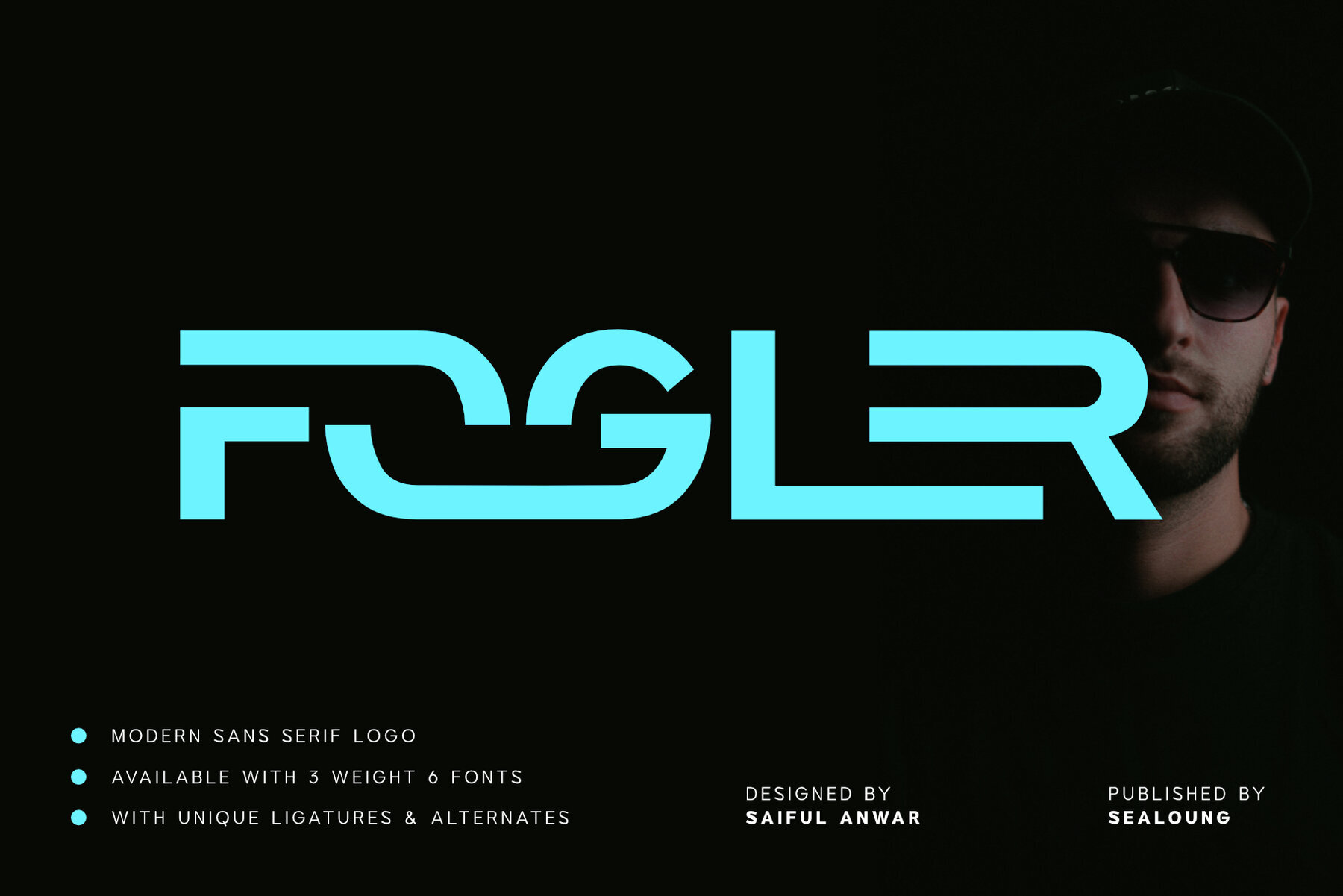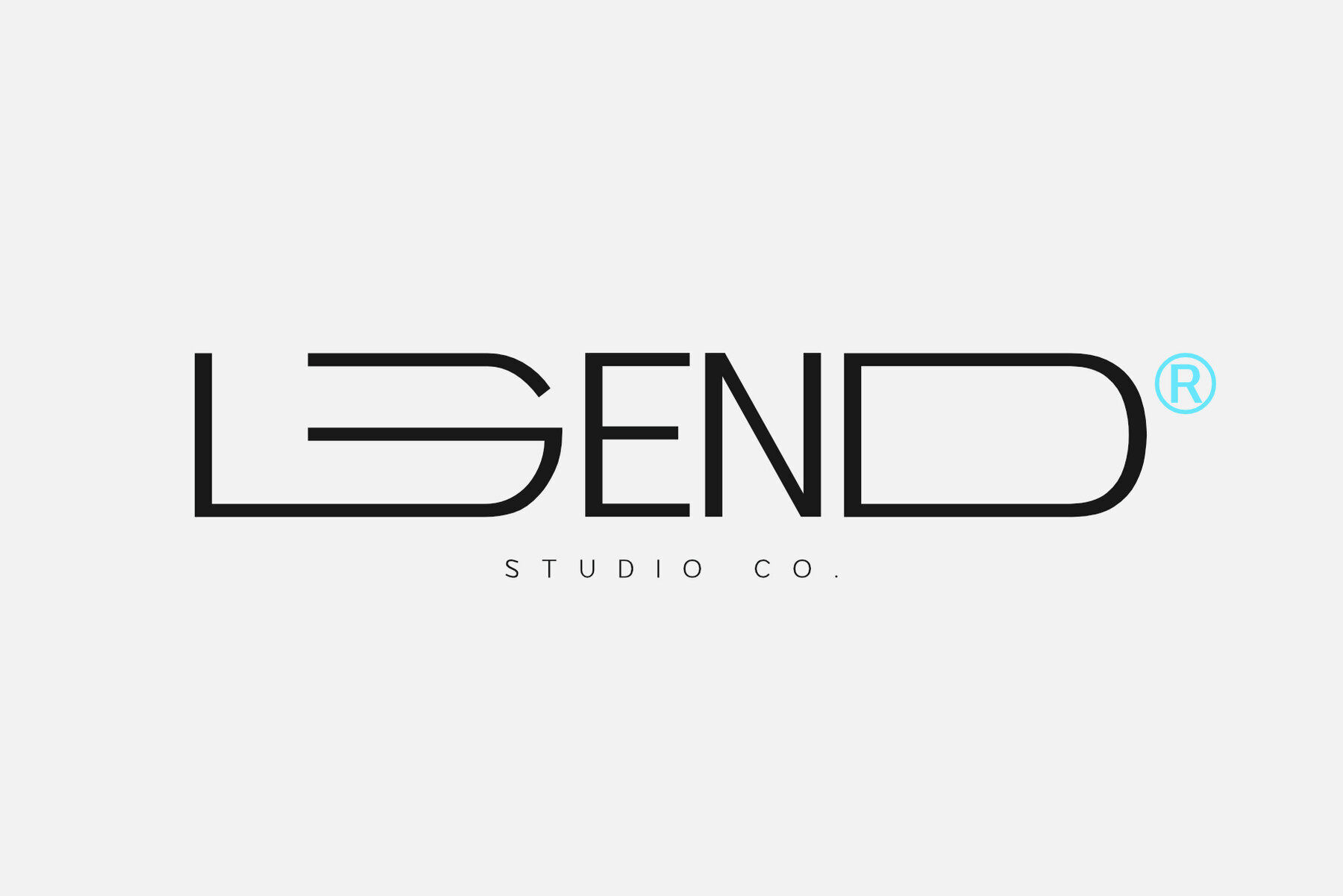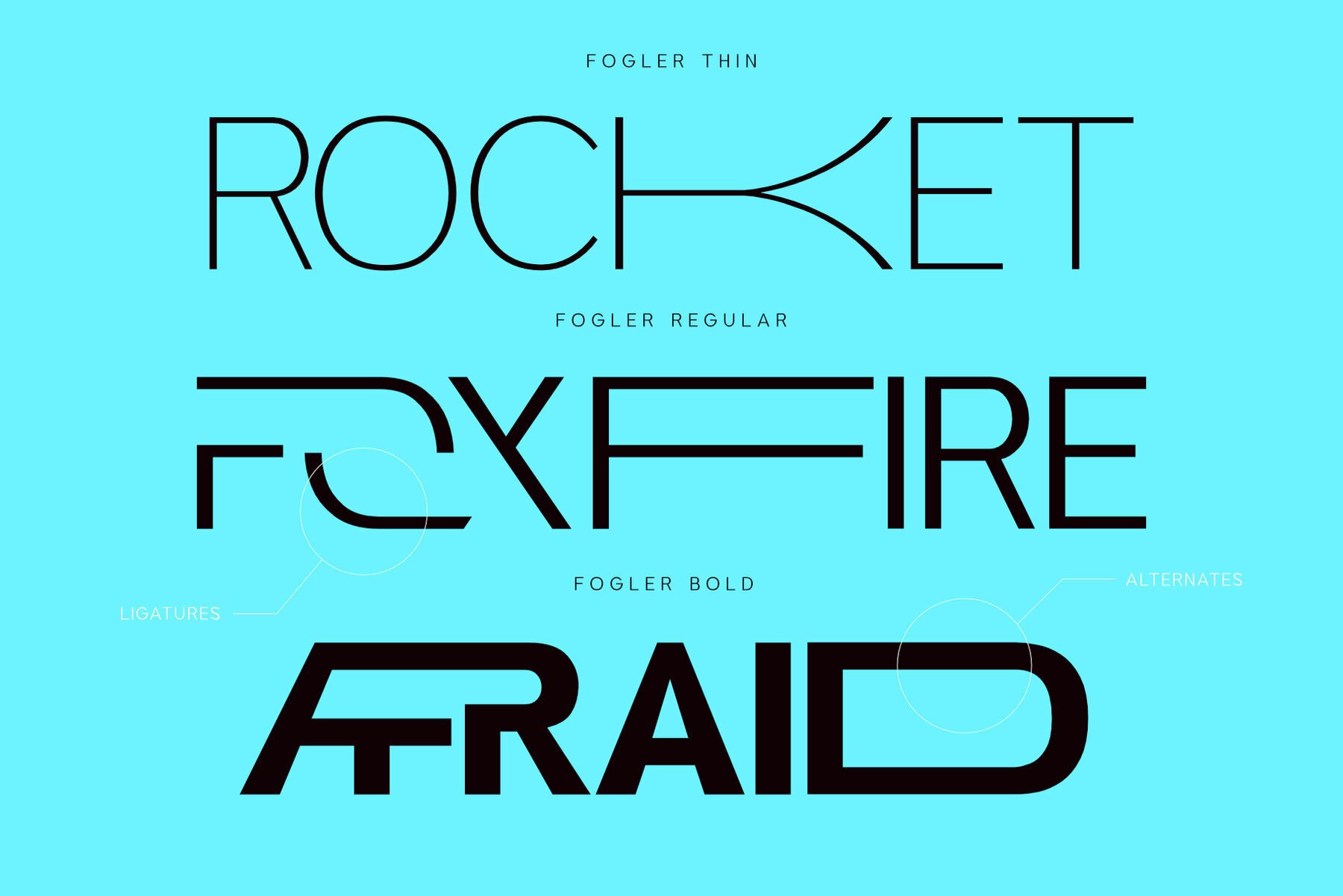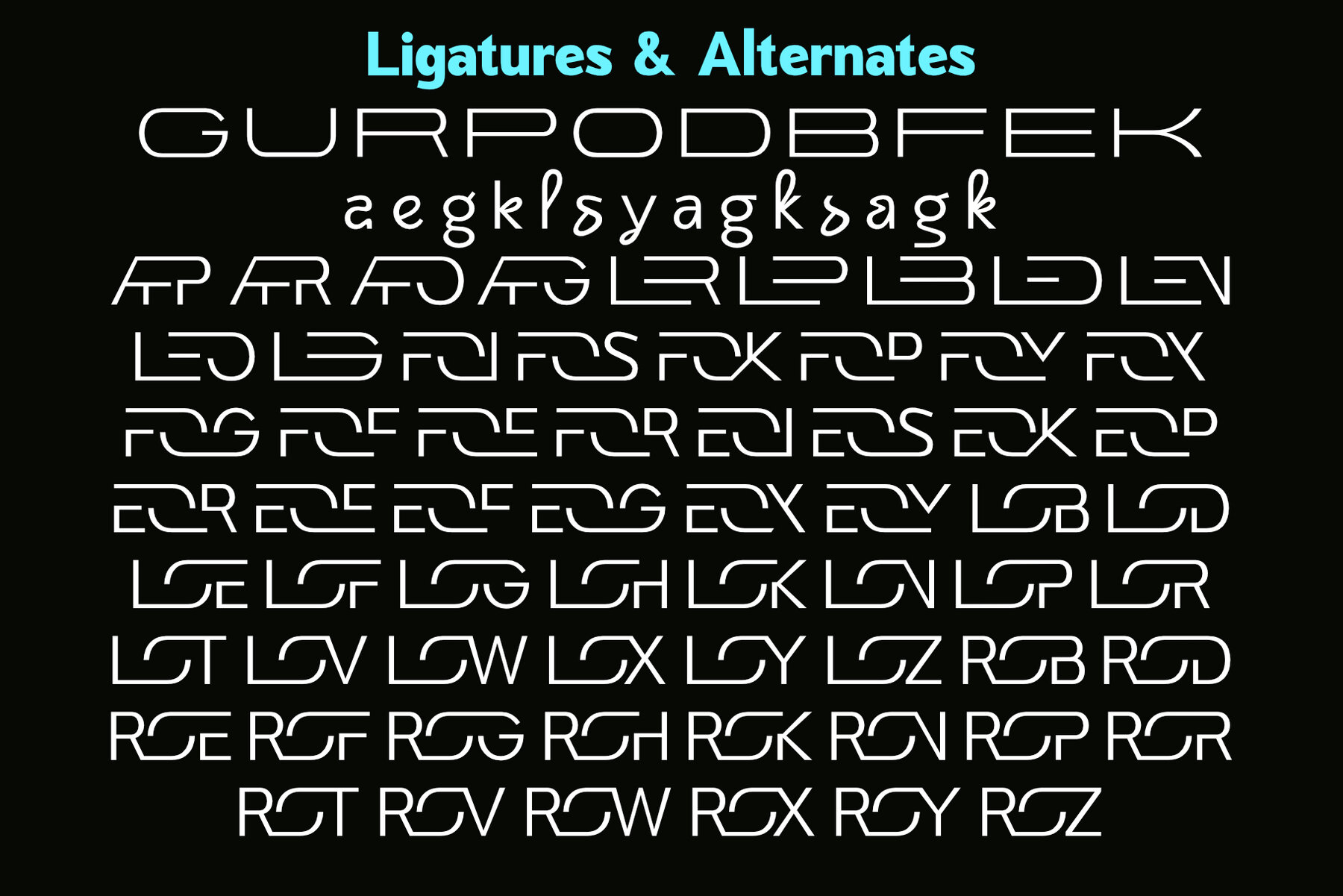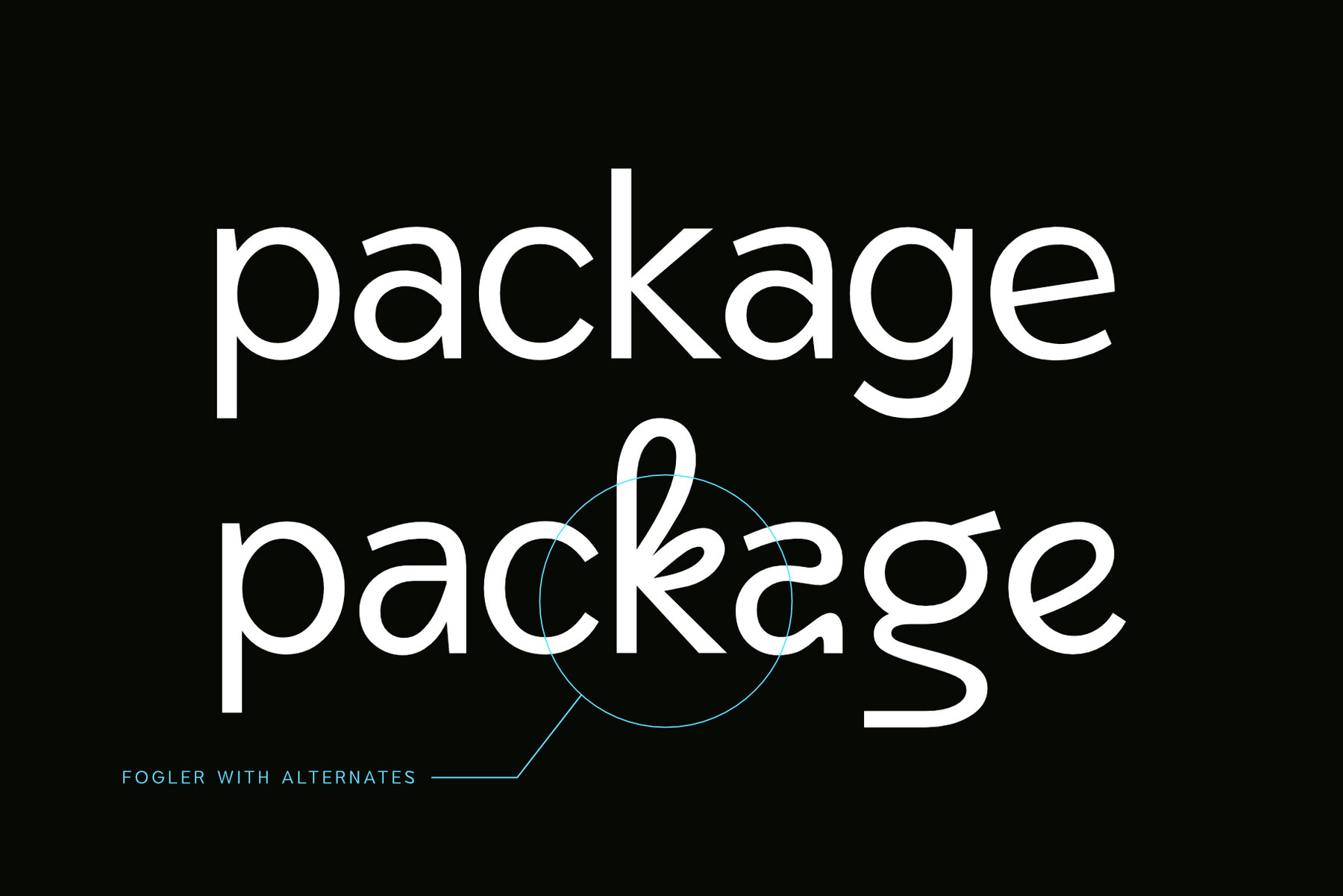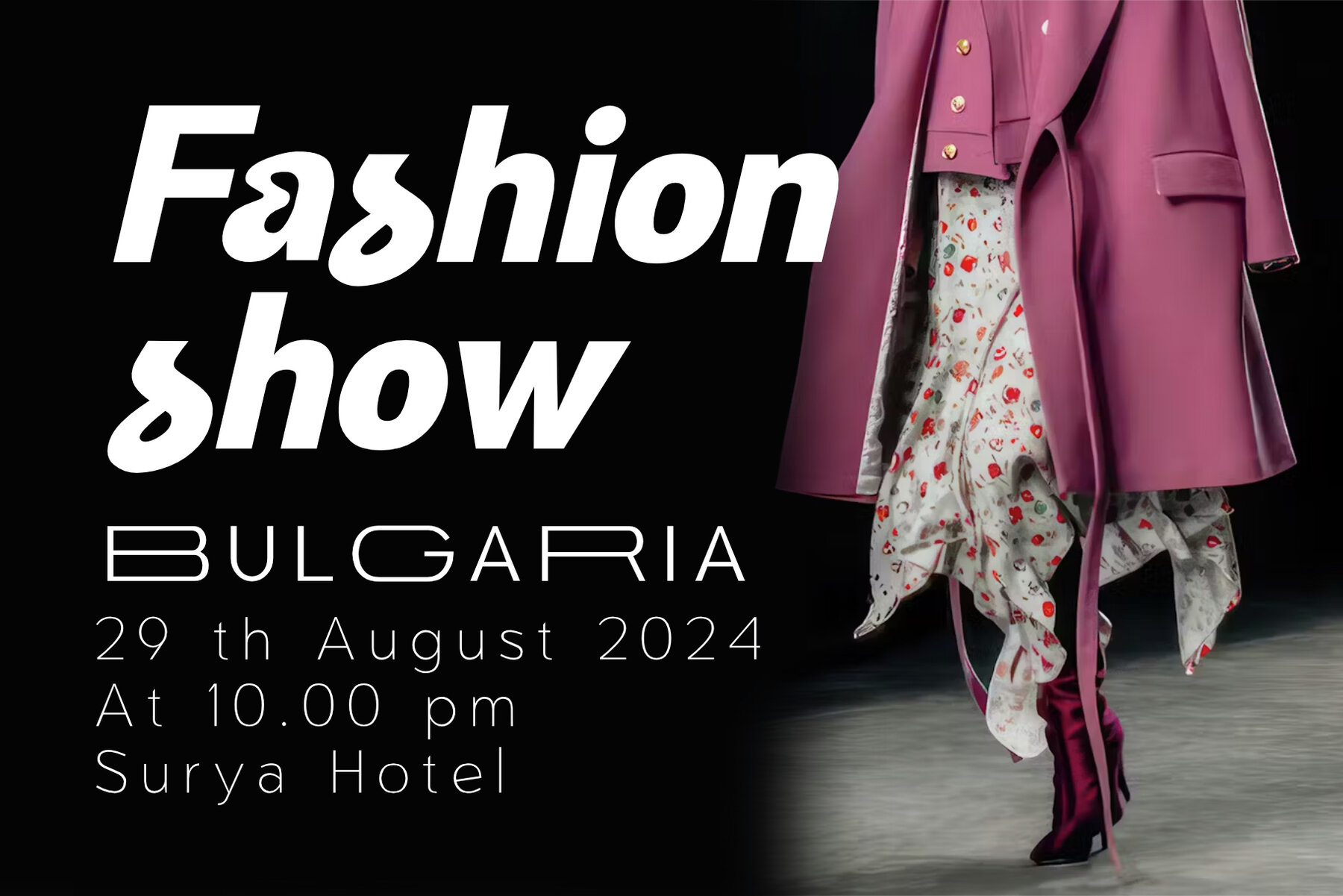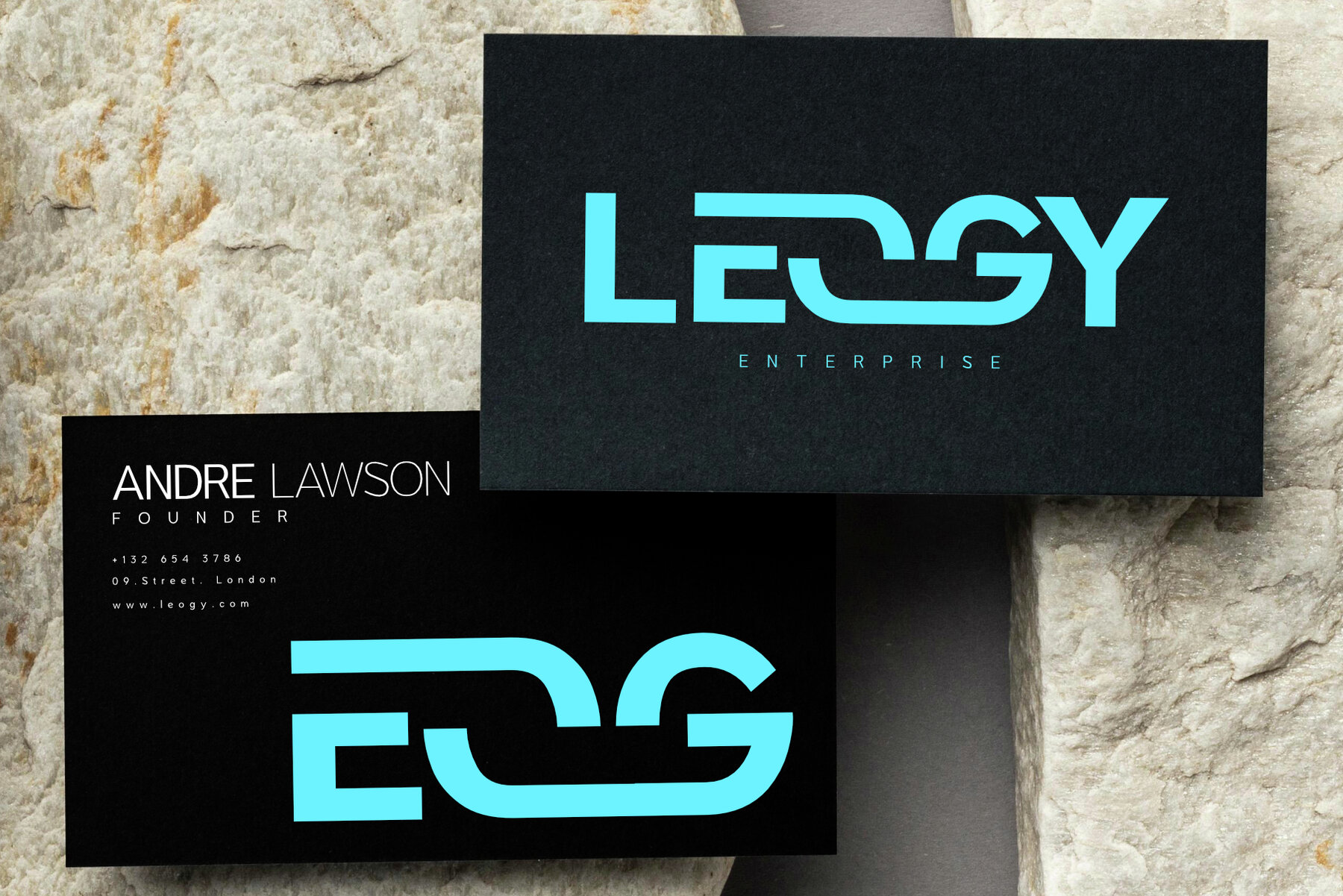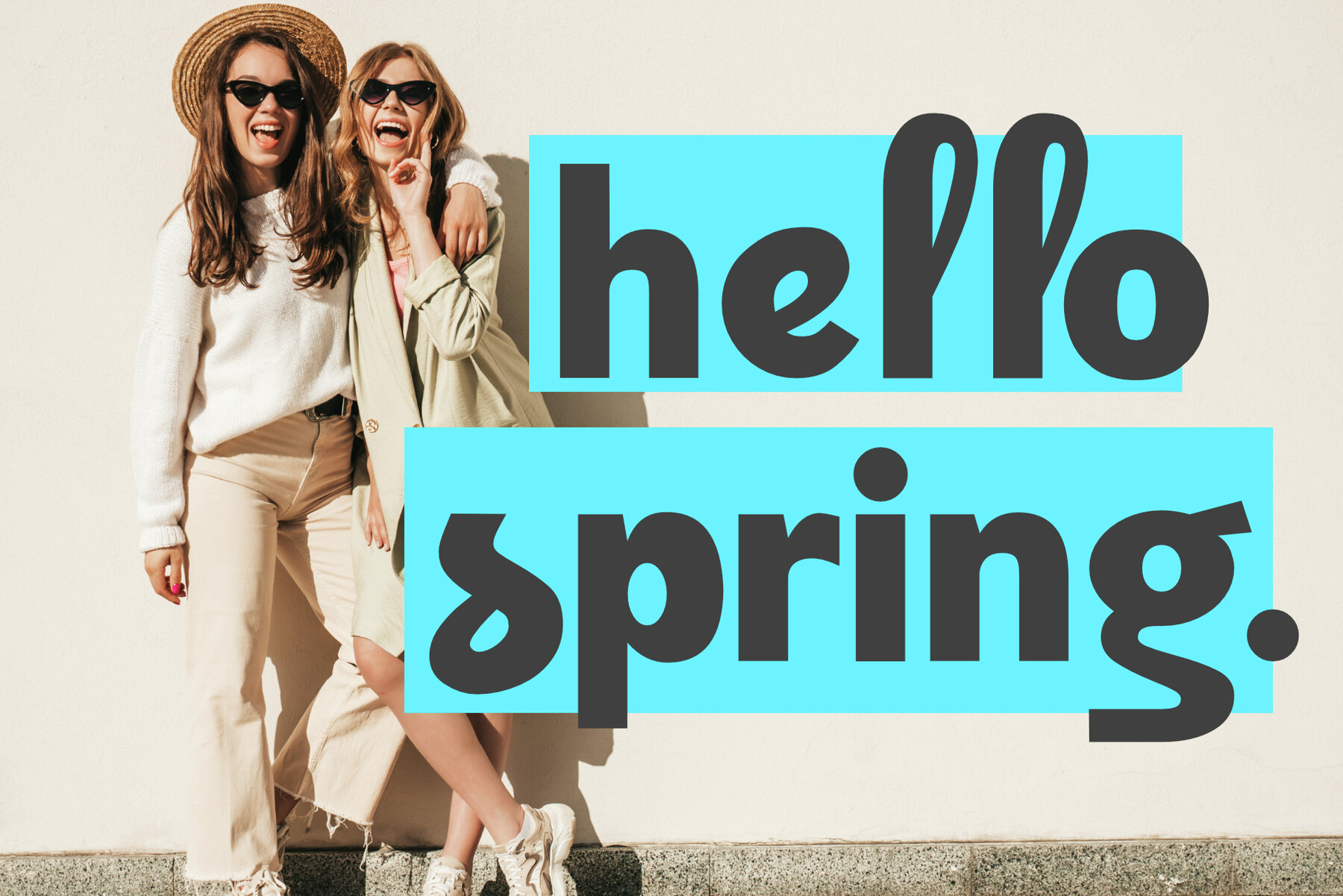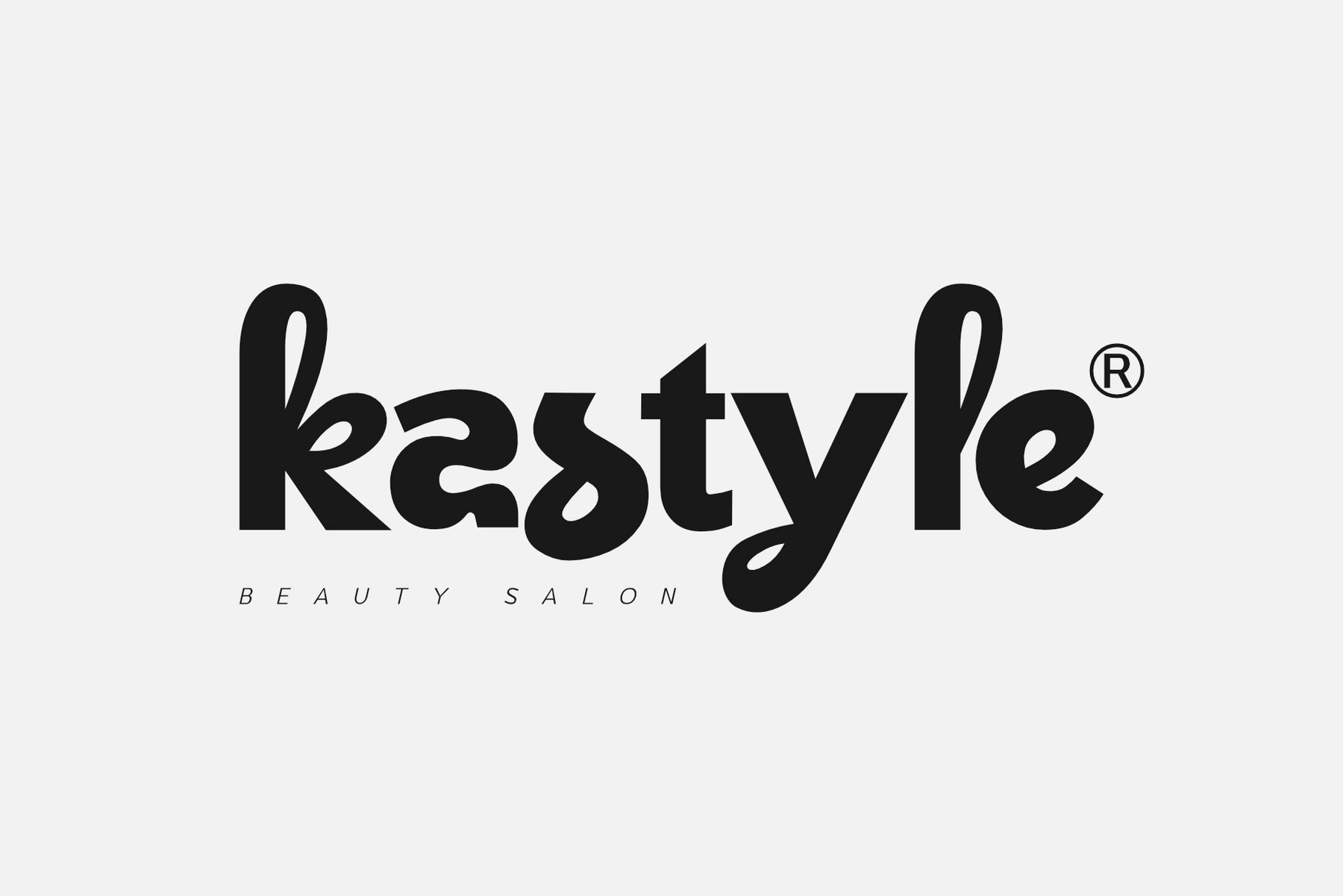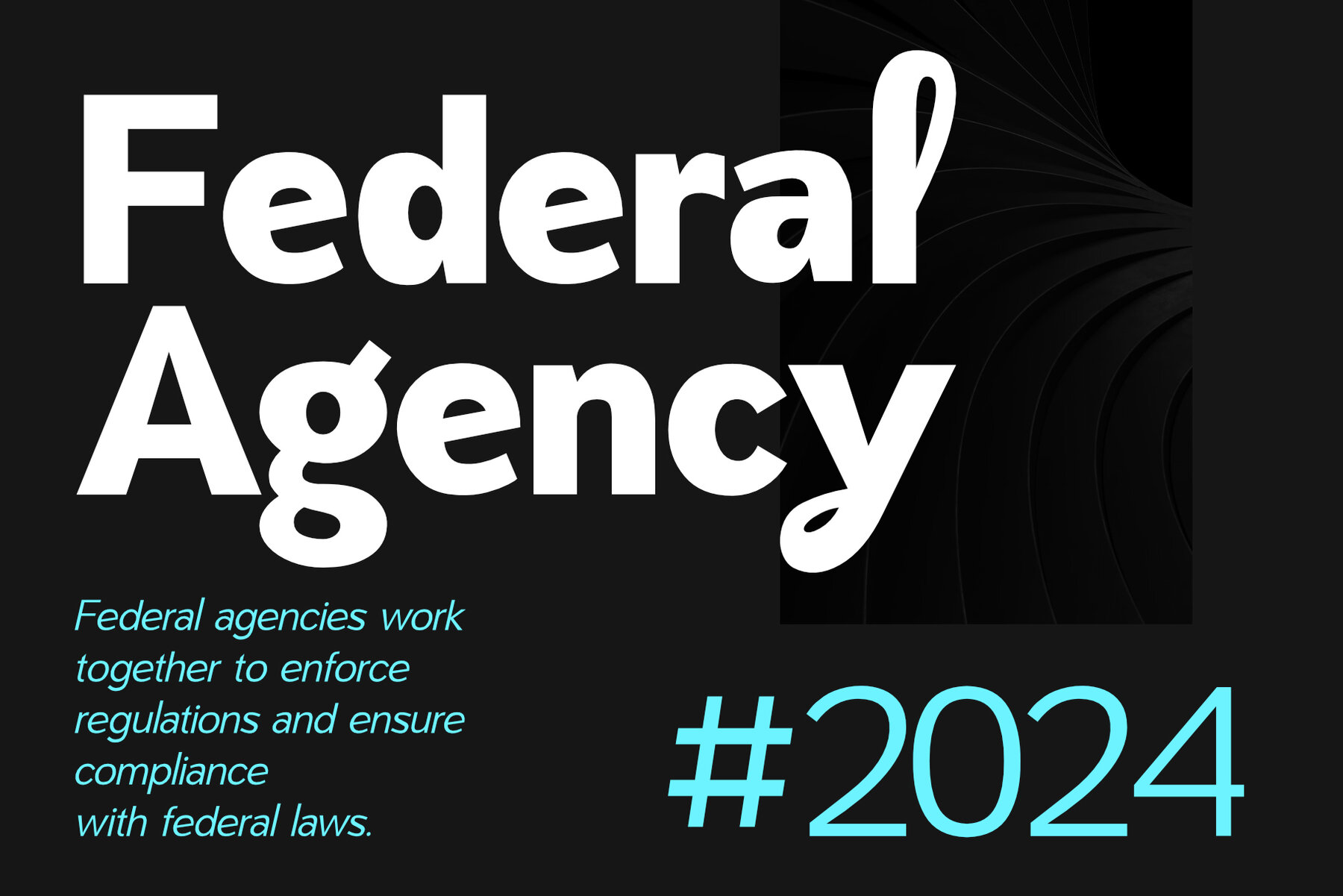
Fogler Font
Fogler is a modern and minimalist sans serif font that offers a well-balanced and iconic design, perfect for corporate logos and diverse branding projects. Featuring a unique aesthetic, Fogler allows for easy stylistic variations with its included ligatures and alternate characters. This makes it a versatile choice for creating distinctive shapes quickly. With high legibility, it's ideal for logos, posters, social media posts, advertisements, product packaging, labels, photography watermarks, invitations, and stationery.